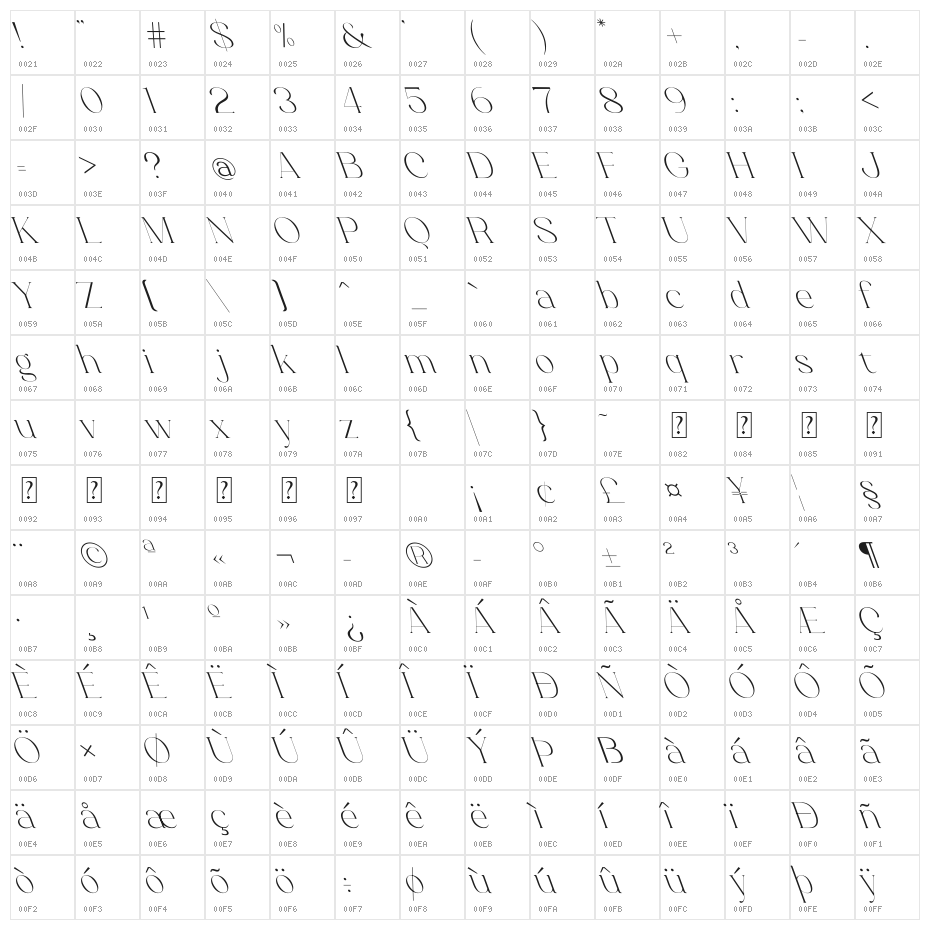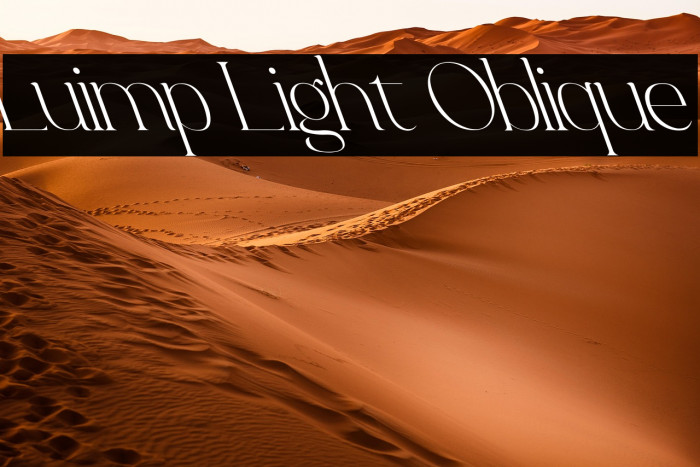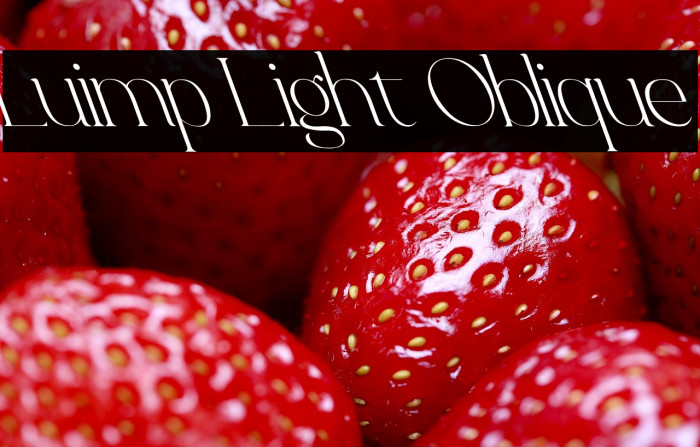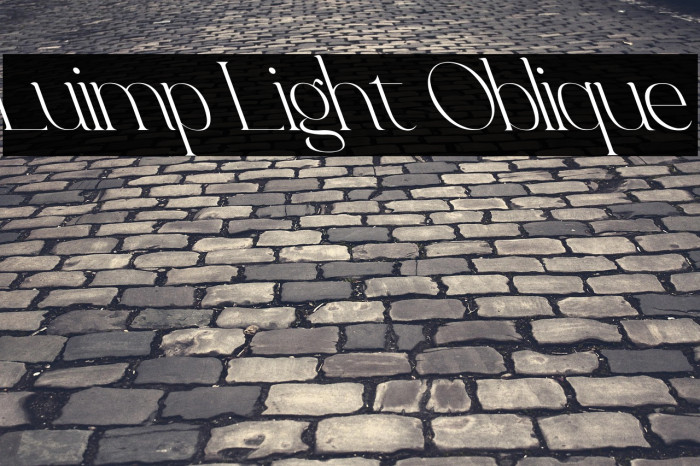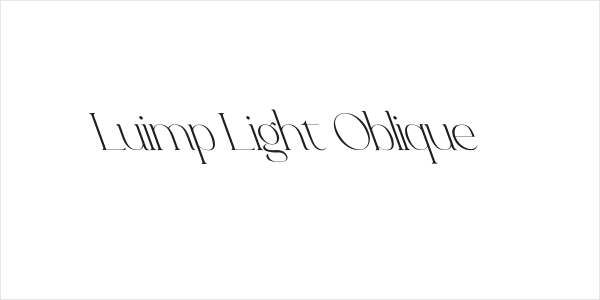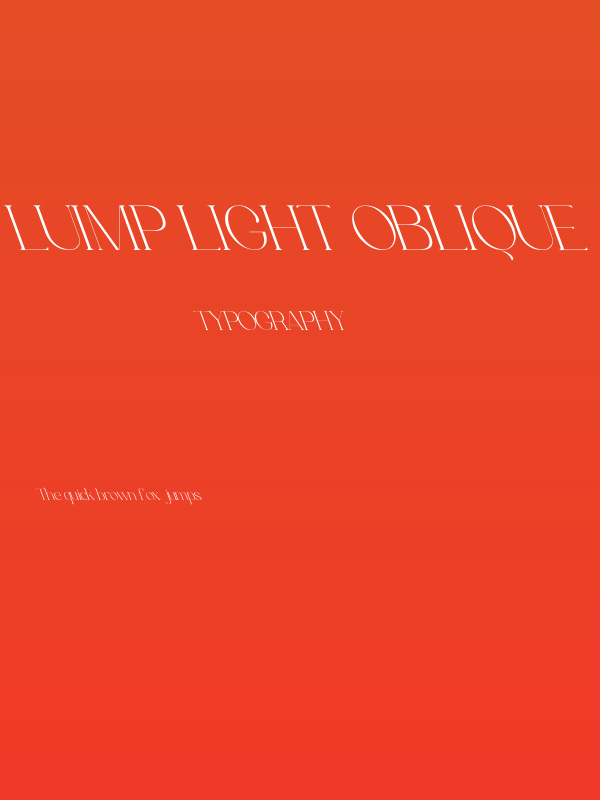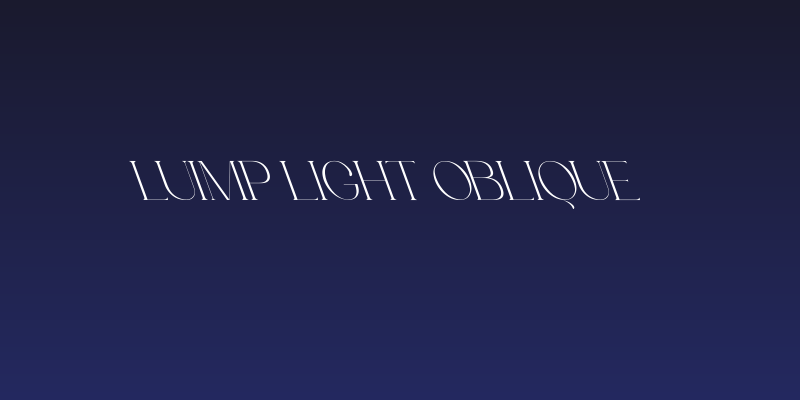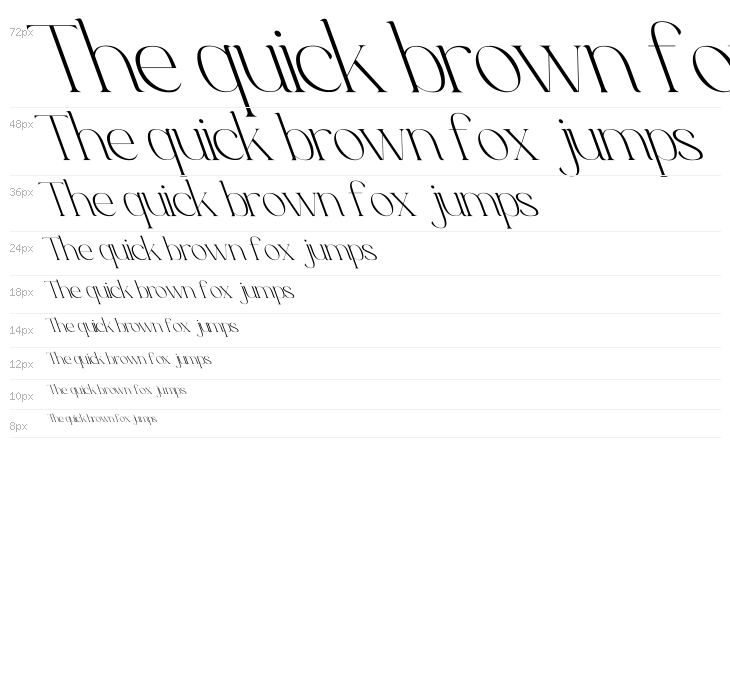
Luimp Light Oblique Font
Luimp Light Oblique Description
This font features an elegant and sophisticated design with a light and oblique style. The characters are slender and elongated, giving a sense of grace and fluidity. The strokes are thin, with a high contrast between thick and thin lines, adding to its refined appearance. The uppercase letters are tall and commanding, while the lowercase letters maintain a consistent flow, enhancing readability. The numerals are distinct and stylish, complementing the overall aesthetic. Special characters are thoughtfully designed, maintaining the font's cohesive look.